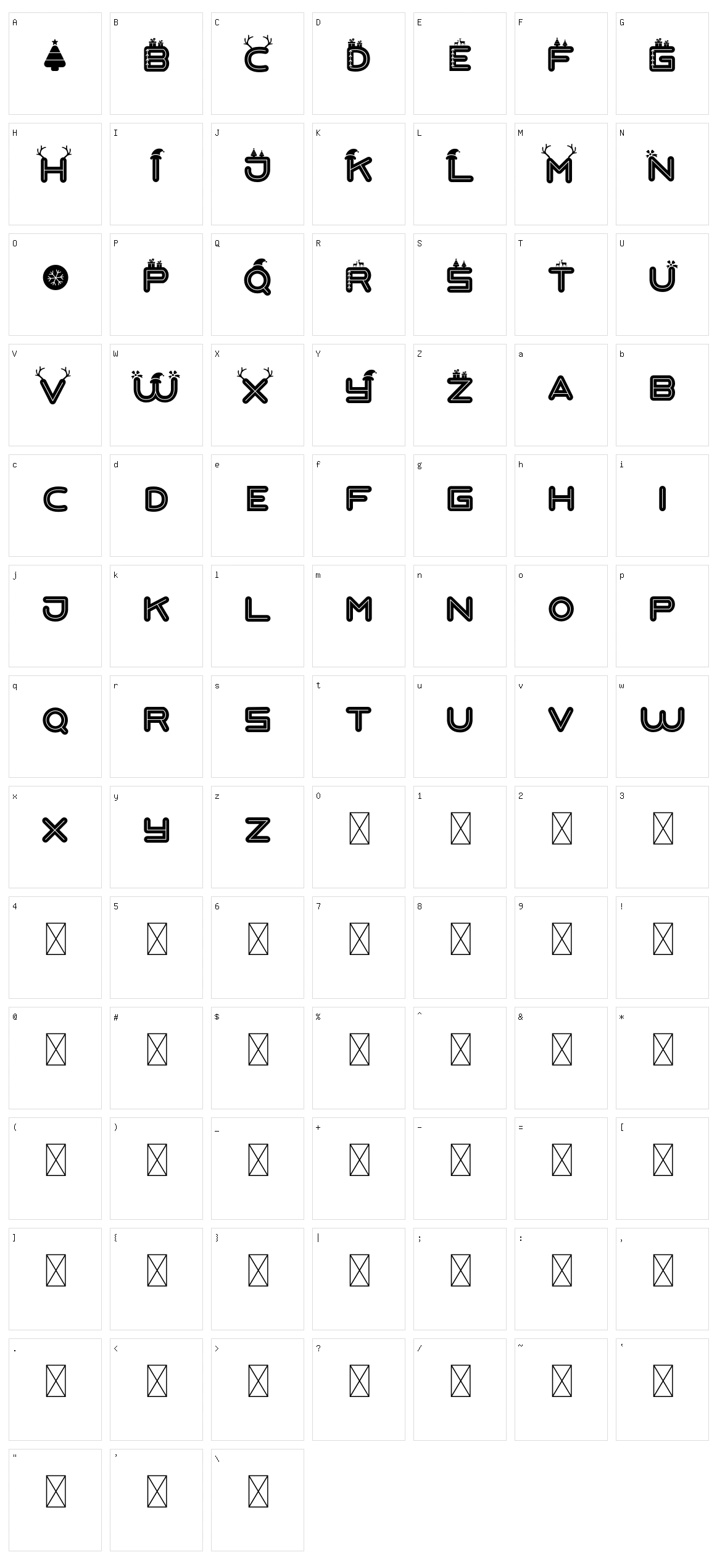
Love Santa merges a classic sans serif font with beautiful Christmas ornaments,
creating a one-of-a-kind holiday font!
Add some jolly Christmas vibes to any design project with this festive font.